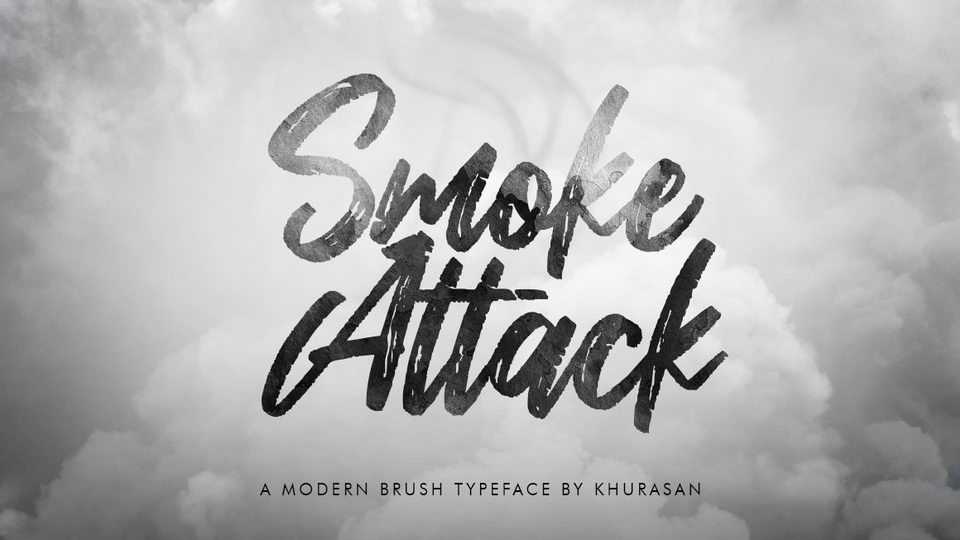
Download Smoke Attack font, a fresh hand painted brush script with strong and powerful feel. Smoke Attack is great for posters, banners, t-shirt prints, social media and more.